Choosing from traditional tattoo font for tattoo designs starts with the job your typography must do. Consider the words, their final size, and the mood of the project. The options below are organized to help you compare useful directions before testing candidates in your own layout.
How to evaluate the options
Set the real headline, name, or label in each candidate. Check legibility at the final size, compare the capitals and repeated letters, and leave enough room for decorative details. Use a quieter companion font for long descriptions and other supporting text.
Quick Oge Font for branding
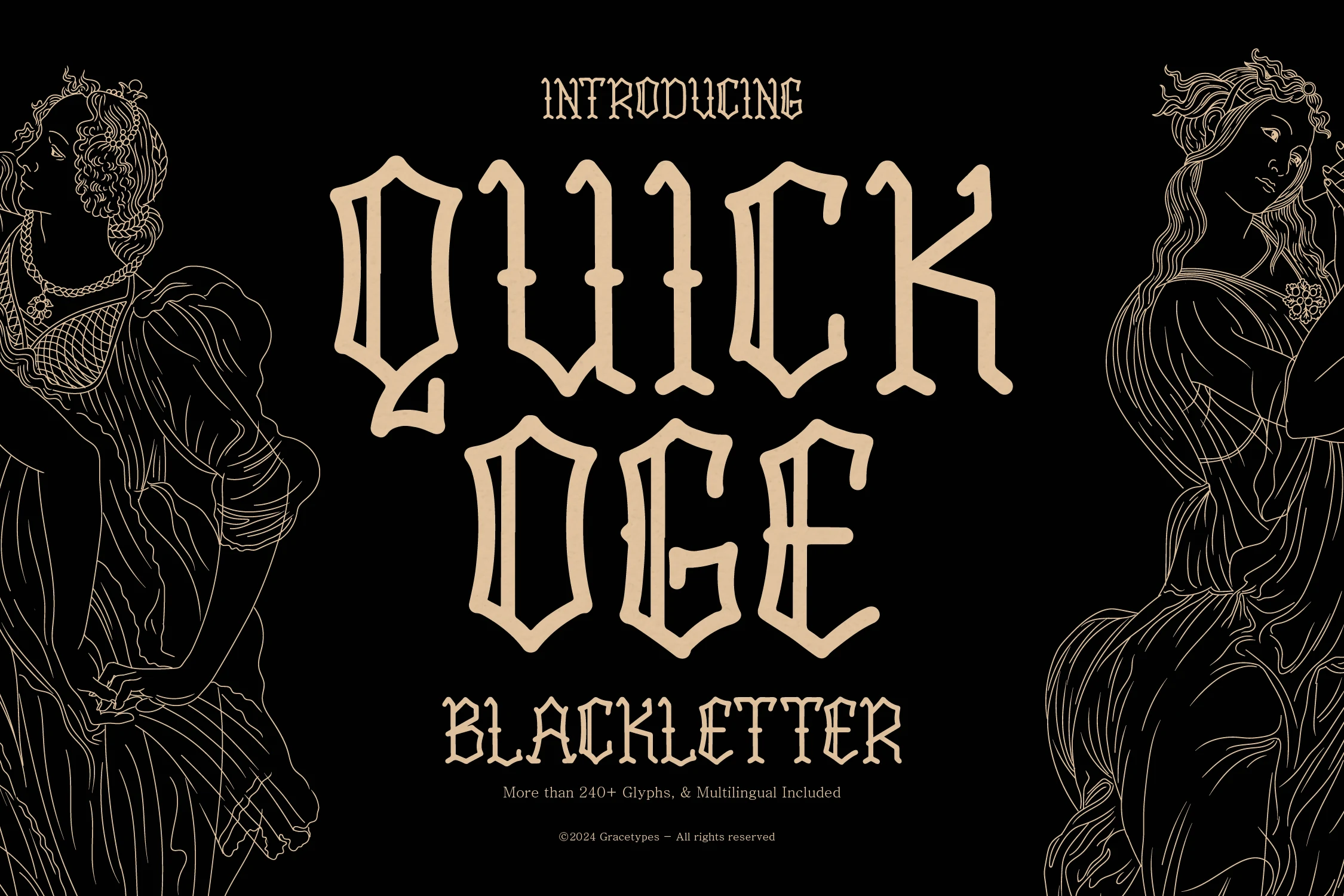
Quick Oge Font is worth testing for branding, posters, and book covers. Look for strong contrast between thick and thin strokes and angular blackletter forms when comparing it with other options. Check the thinnest strokes at the final display size.
Tattoo Nobaga Font for logos
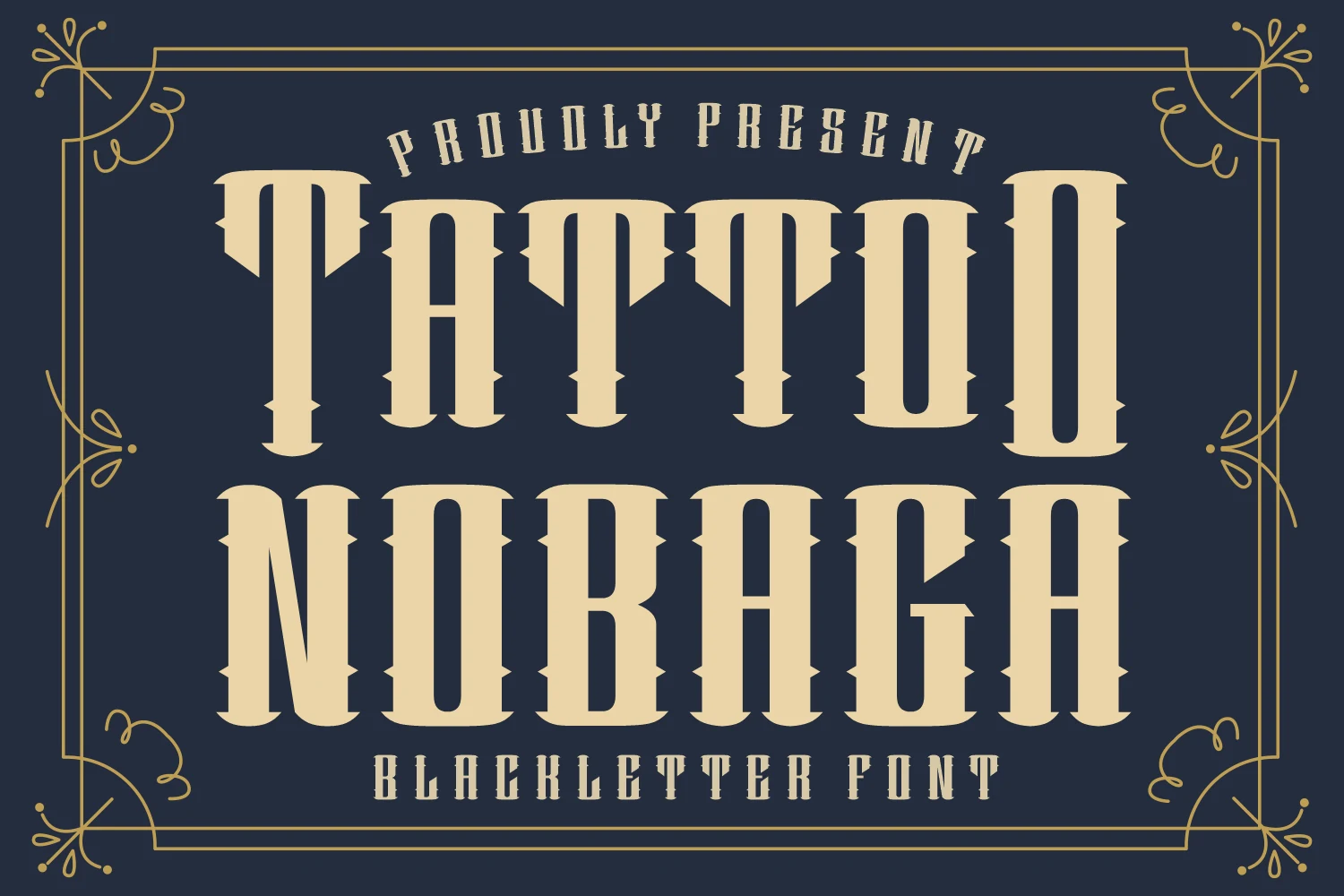
For logos, branding, and display text, consider Tattoo Nobaga Font. Its design draws on angular blackletter forms and display-focused letterforms. Give the letter shapes generous space in short headlines.
Life Brief Font for posters
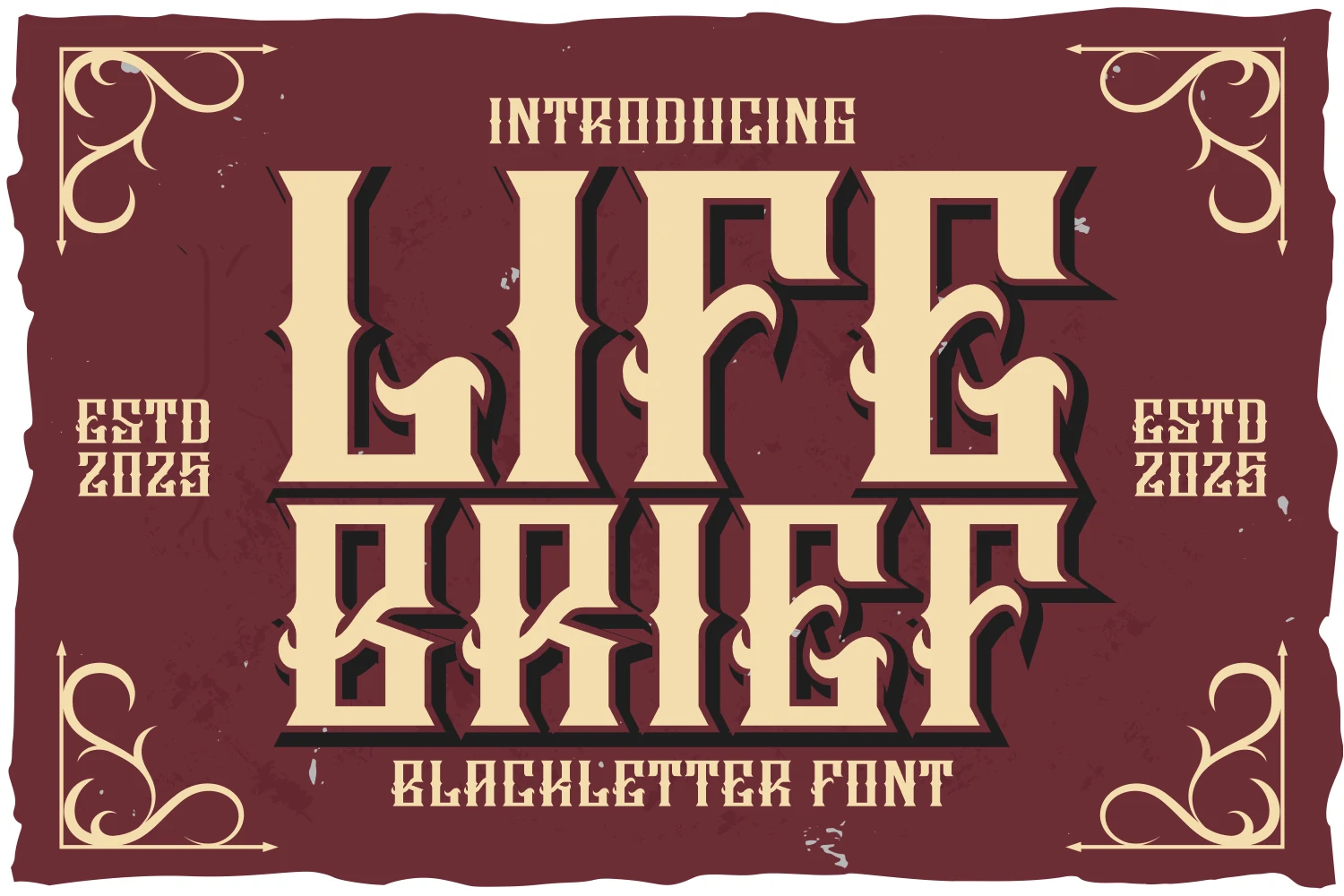
Life Brief Font can anchor posters, branding, and product labels. The main visual cues are angular blackletter forms and narrow proportions. Give the letter shapes generous space in short headlines.
Roger Font for logos
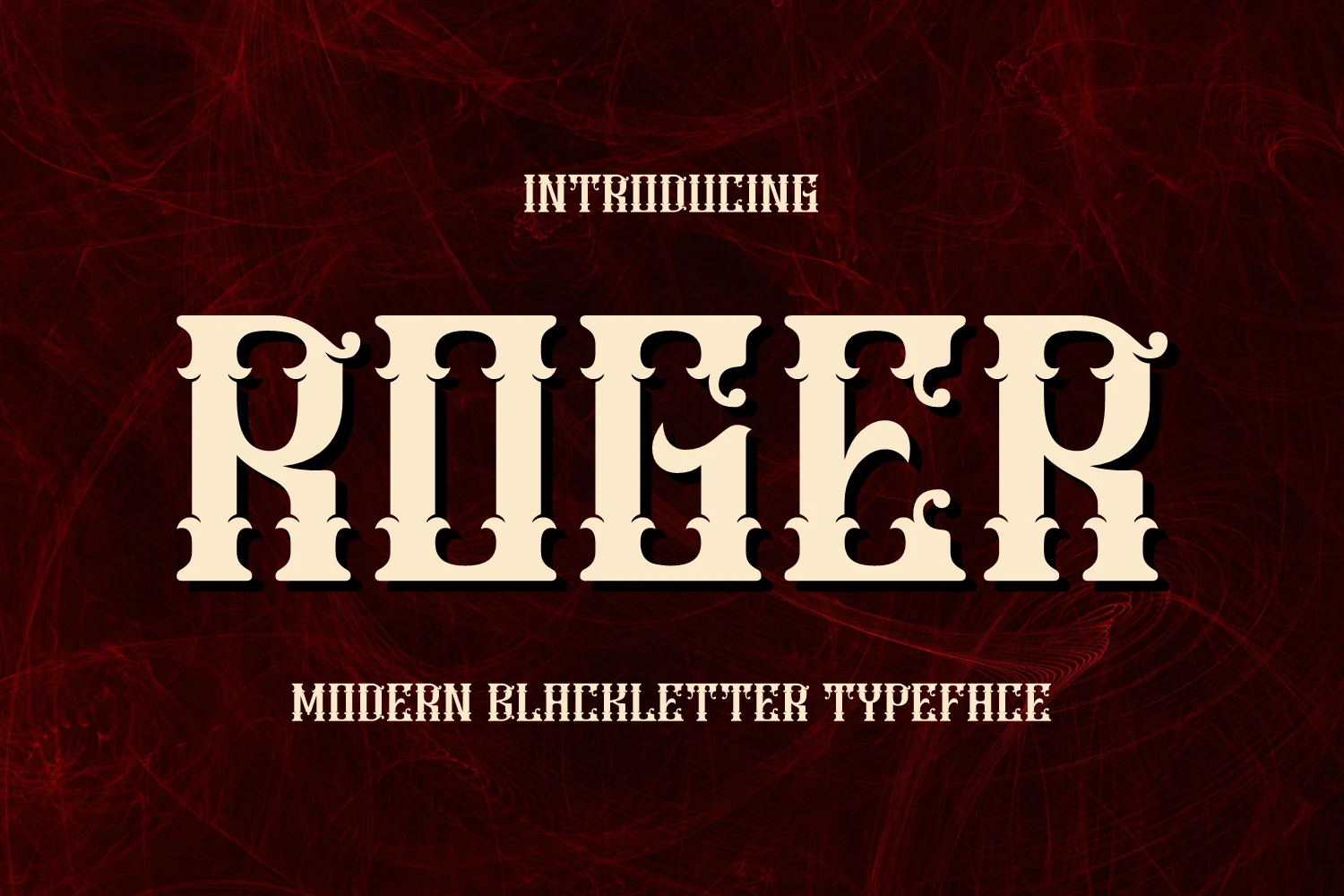
Roger Font is worth testing for logos, display text, and headlines. Look for strong contrast between thick and thin strokes and angular blackletter forms when comparing it with other options. Check the thinnest strokes at the final display size.
Fight Today Font for wall art
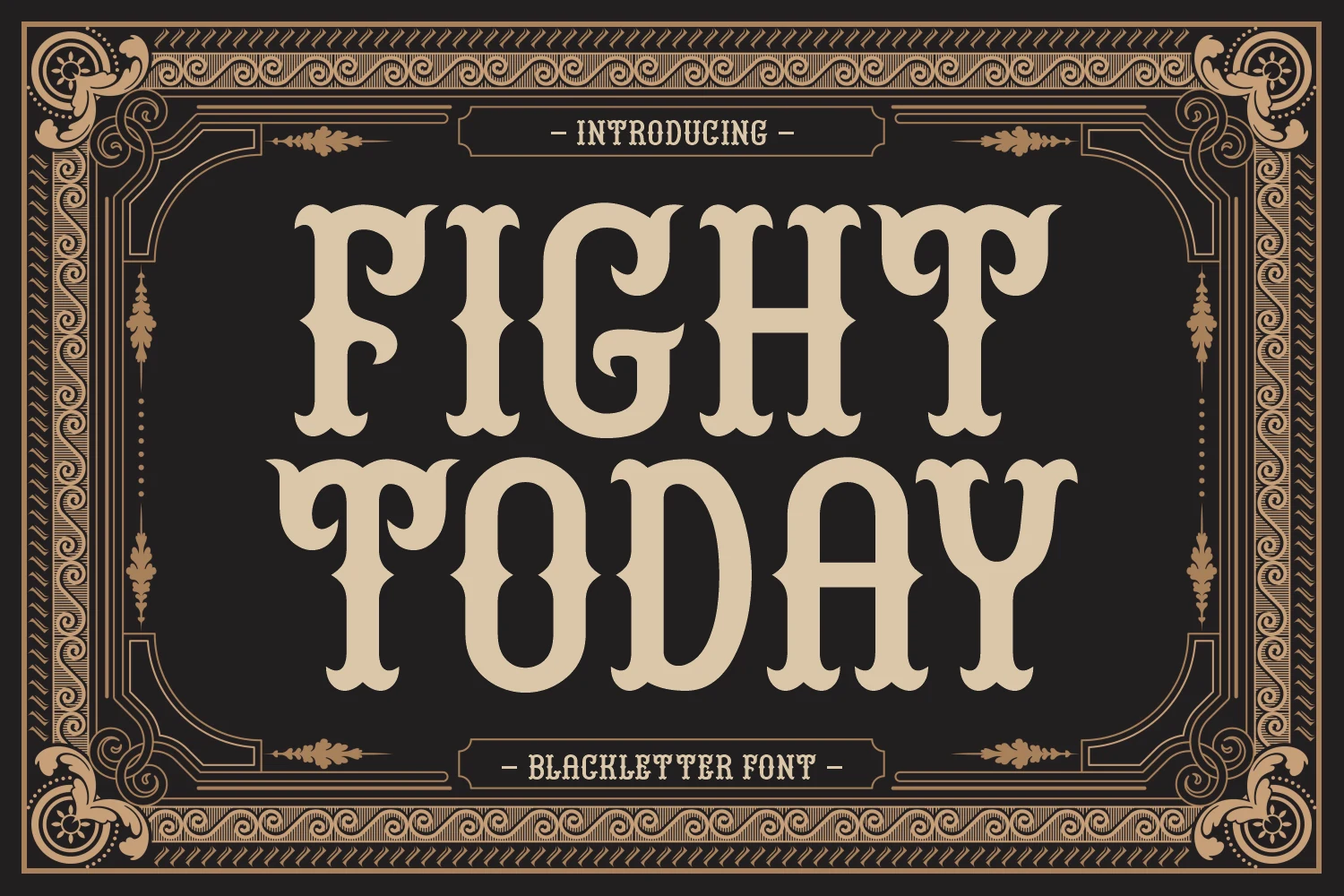
For wall art, signage, and posters, consider Fight Today Font. Its design draws on display-focused letterforms. Use it where the type can be seen at a generous size.
Gofake Font for posters
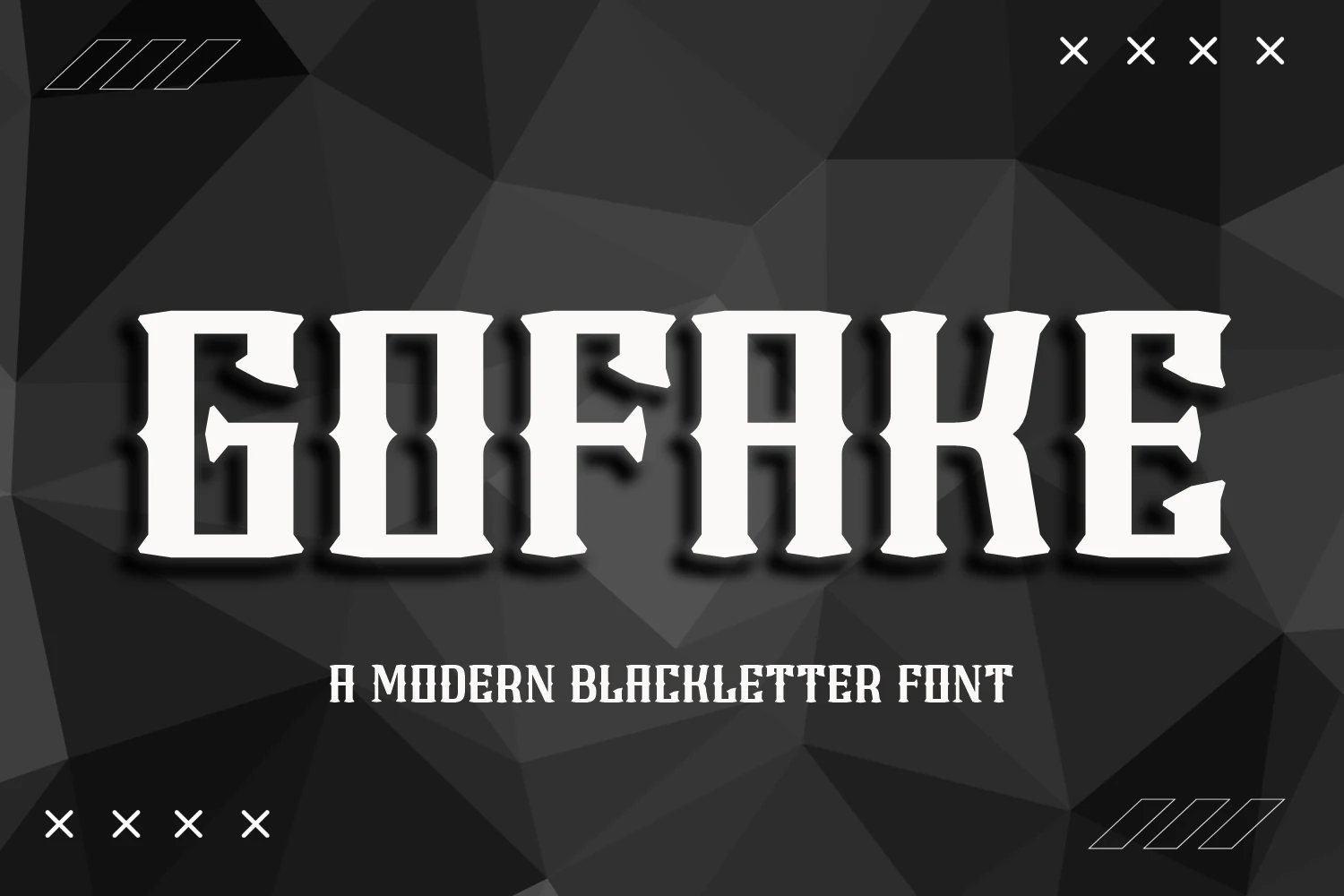
Gofake Font can anchor posters, branding, and logos. The main visual cues are angular blackletter forms and display-focused letterforms. Give the letter shapes generous space in short headlines.
Tattoo Notes Font for posters
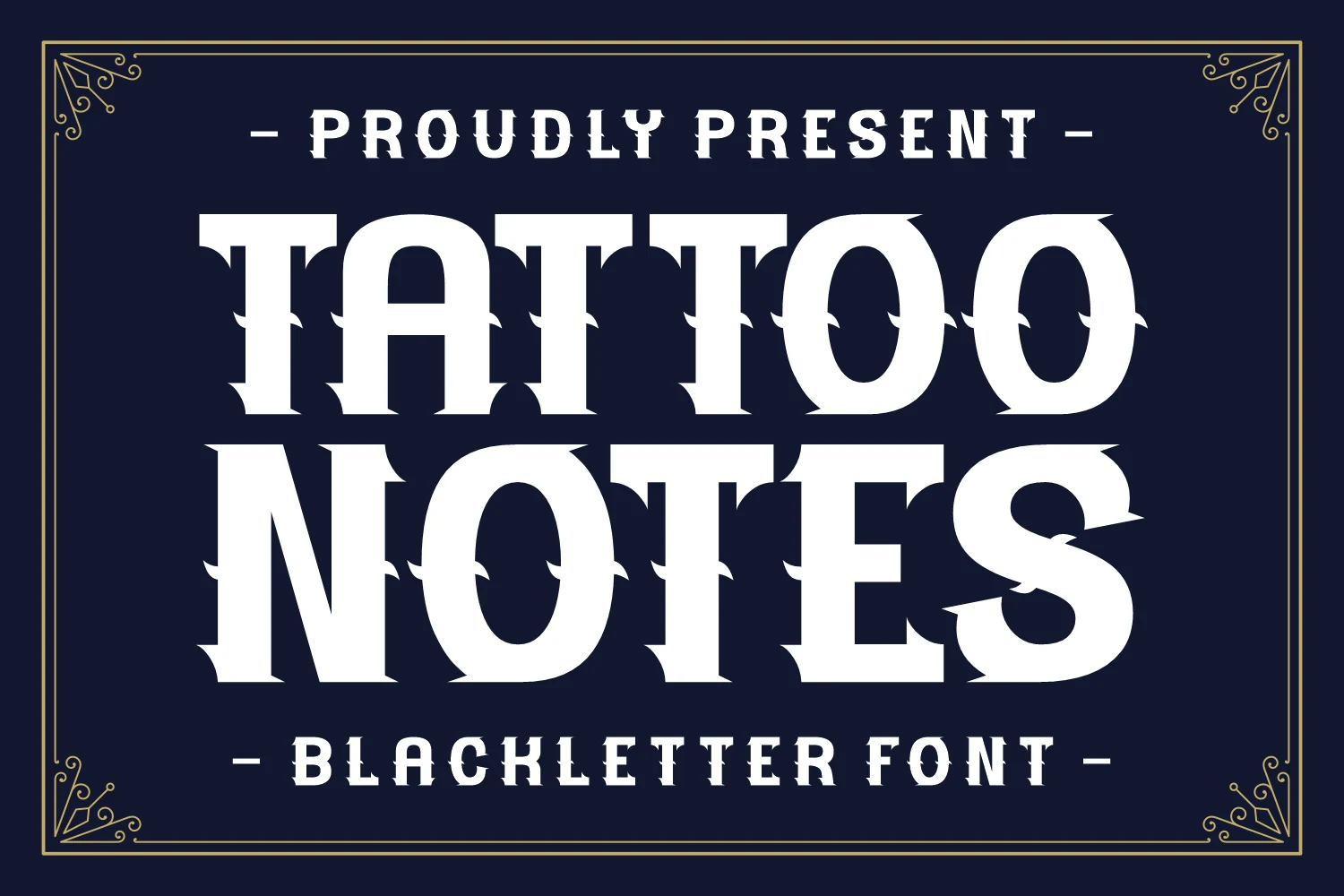
Tattoo Notes Font is worth testing for posters, T-shirts, and display text. Look for strong contrast between thick and thin strokes and angular blackletter forms when comparing it with other options. Check the thinnest strokes at the final display size.
Refill Tattoo Font for branding
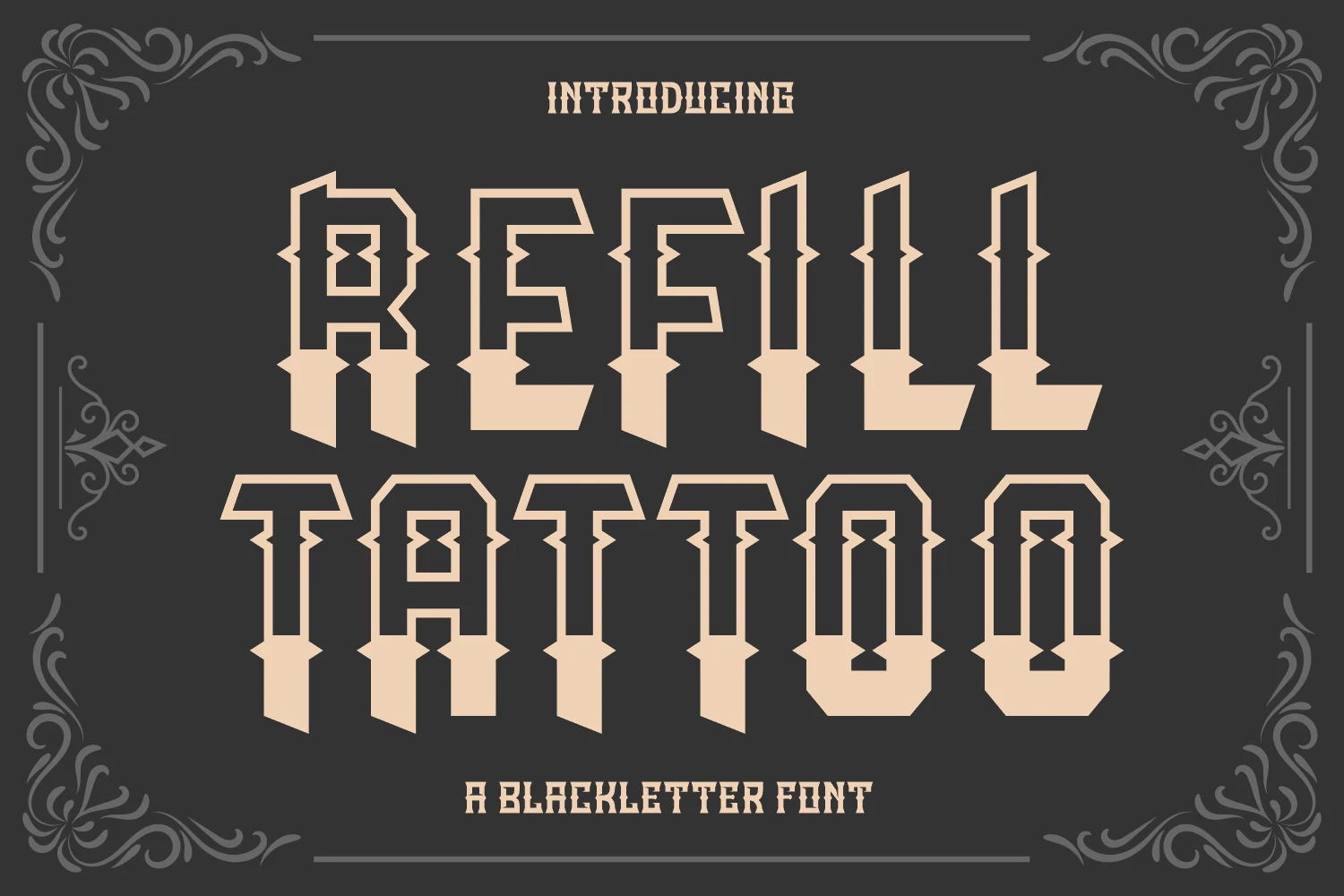
For branding, posters, and T-shirts, consider Refill Tattoo Font. Its design draws on angular blackletter forms and geometric construction. Give the letter shapes generous space in short headlines.
Classic Tattoo Font for logos
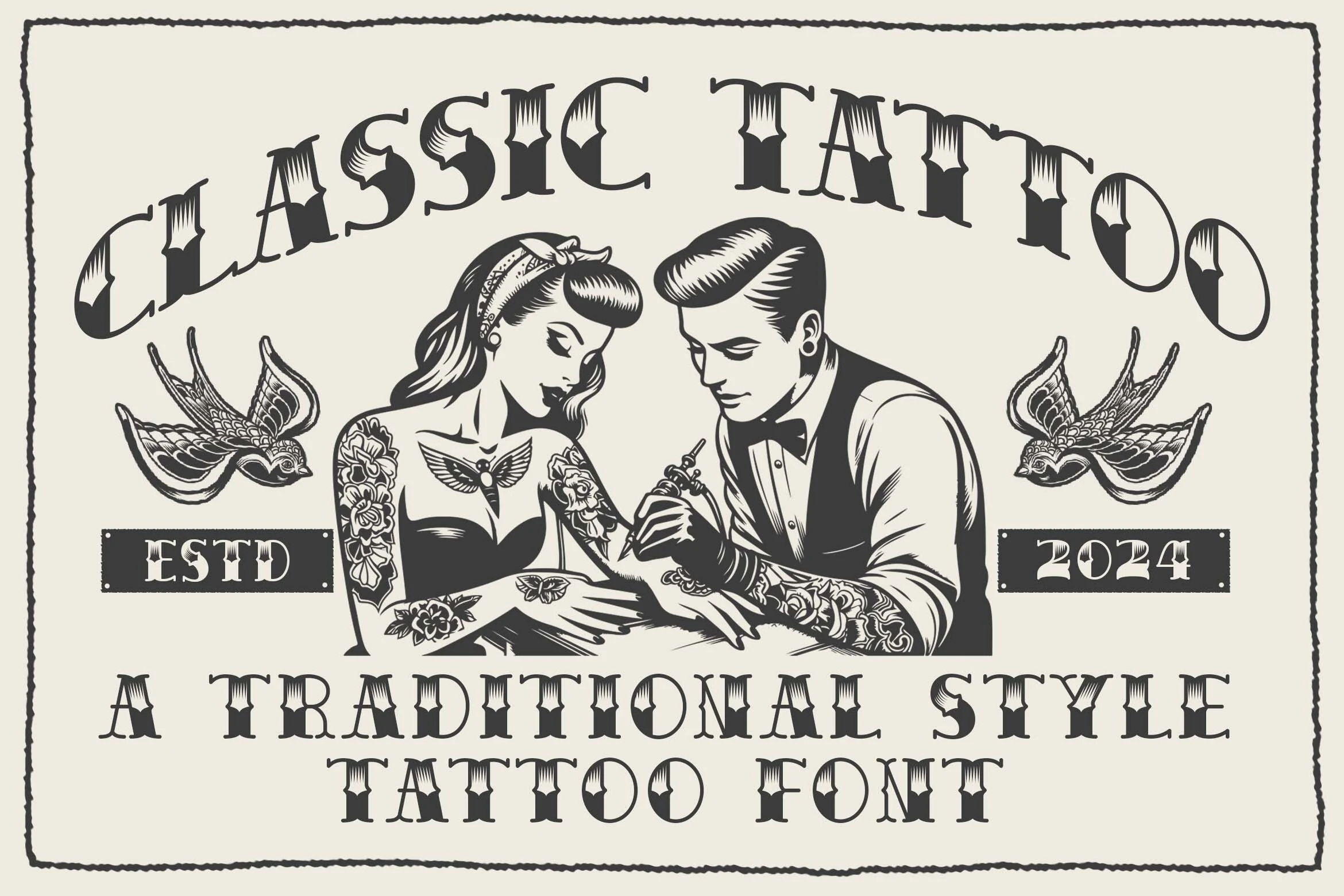
Classic Tattoo Font can anchor logos, branding, and packaging. The main visual cues are geometric construction and serif details. Check whether repeated shapes make short words feel balanced.
Shady Forest Font for logos
Shady Forest Font is worth testing for logos, posters, and display text. Look for strong contrast between thick and thin strokes and display-focused letterforms when comparing it with other options. Check the thinnest strokes at the final display size.
Final checks before using a font